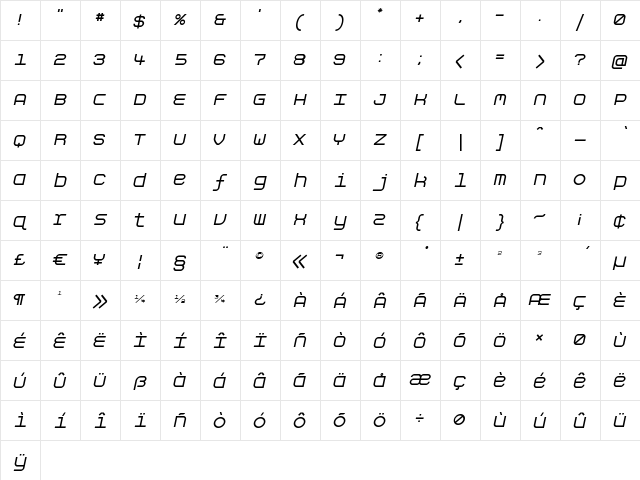
Aspirin-Intoxicate Regular
Design Context for Aspirin-Intoxicate Typeface
Aspirin-Intoxicate offers clean, dependable letterforms without strong stylistic allegiance, making it a practical choice for designers who need flexibility.